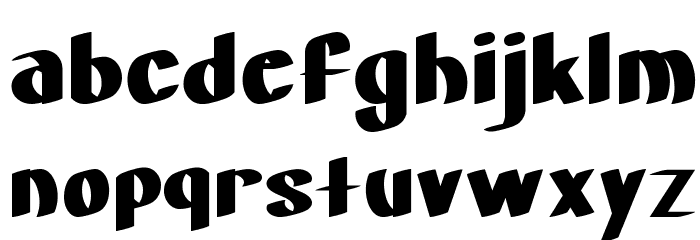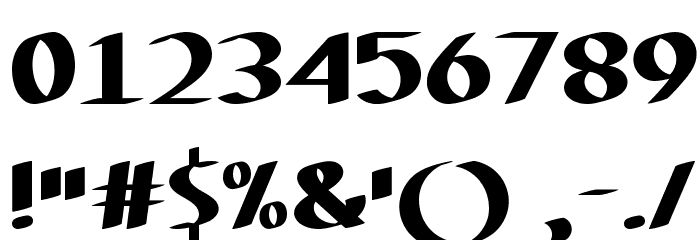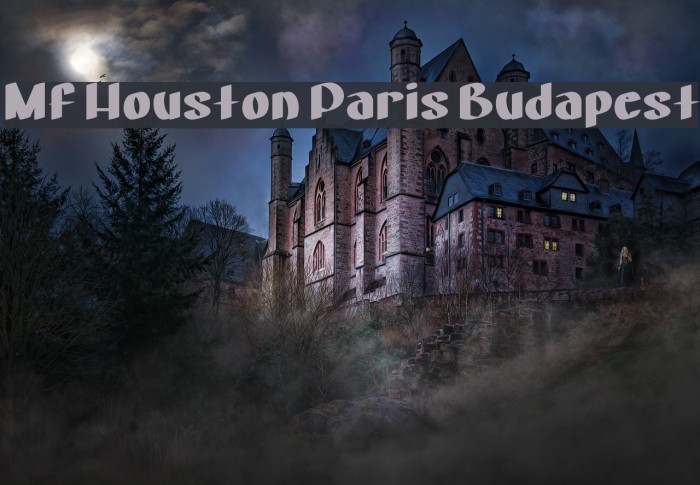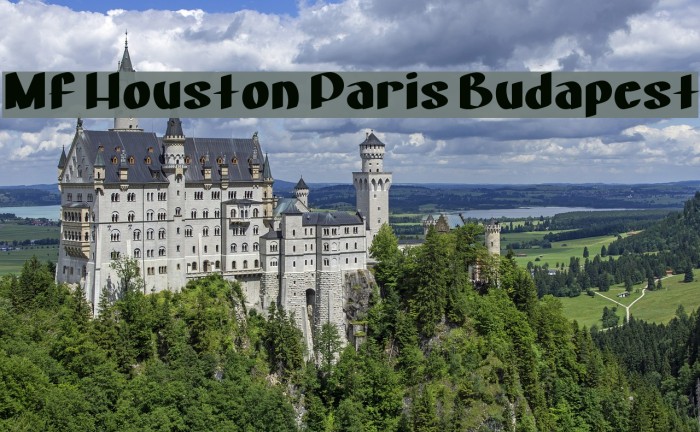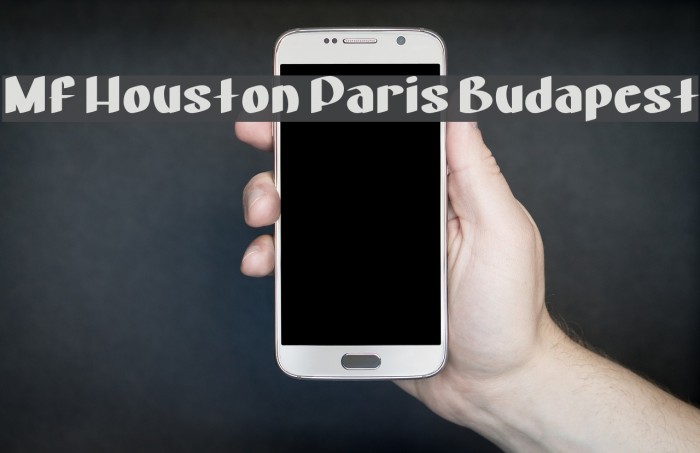
Mf Houston Paris Budapest Font
This font exhibits a bold and dynamic style with a strong presence. The characters are designed with sharp angles and a slight slant, giving them a sense of movement and energy. The uppercase letters are particularly striking, with a unique flair that adds a touch of elegance and sophistication. The lowercase letters maintain a consistent style, ensuring readability while retaining the font's distinctive character. The numerals are bold and clear, making them suitable for various applications. Special characters are thoughtfully designed to match the overall aesthetic, providing a cohesive look across all text elements.
A bold, dynamic font with sharp angles and a slight slant, exuding energy and elegance.